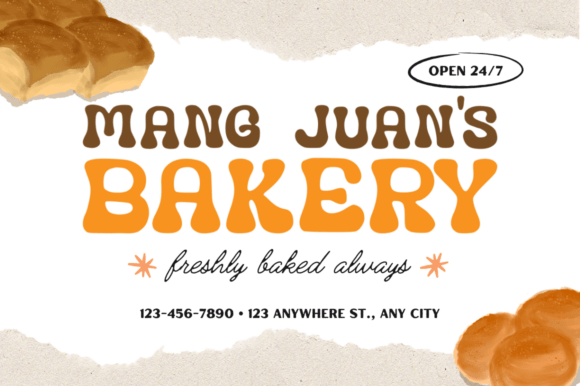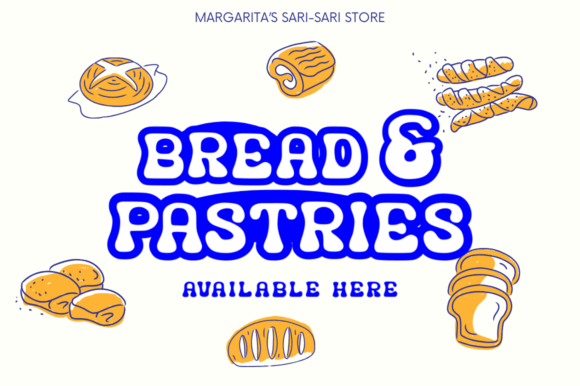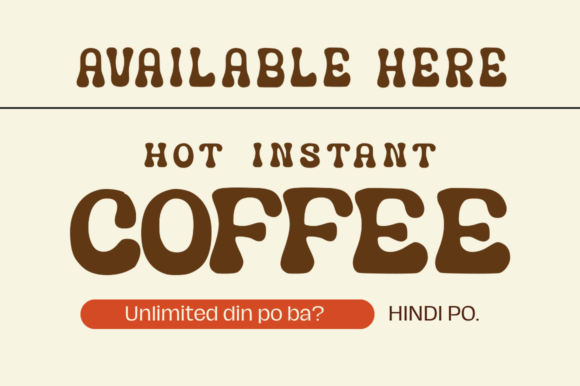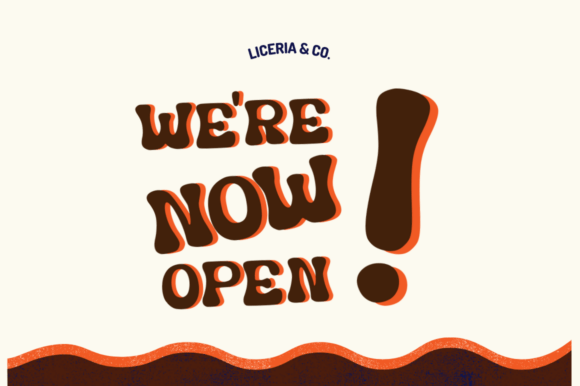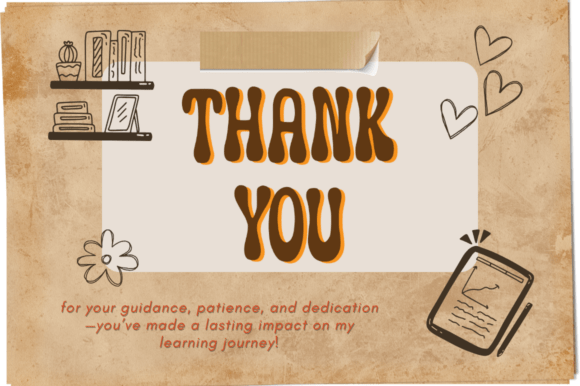
Introduction to Retroblob Font
Retroblob is a bold slab-serif display font with retro curves and funky energy.
Its chunky structure and softened edges make it perfect for vintage posters, branding with a retro twist, or any design seeking to channel bold 70s-80s nostalgia Eye-catching and charismatic with a playful edge.